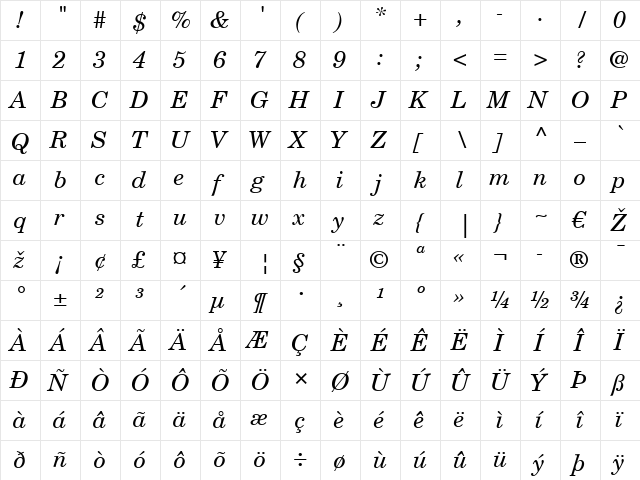
NewCenturySchlbk LT Italic Regular
Design Context for NewCenturySchlbk LT Italic Typeface
NewCenturySchlbk LT Italic is a composed and adaptable typeface that performs quietly and consistently across a wide range of design contexts. The slanted form adds forward momentum and visual energy. Its slender proportions lend an understated elegance to any composition.
Pro Tip: Use NewCenturySchlbk LT Italic for emphasis, pull quotes, and subheadings where its slanted energy can add rhythm to the layout.